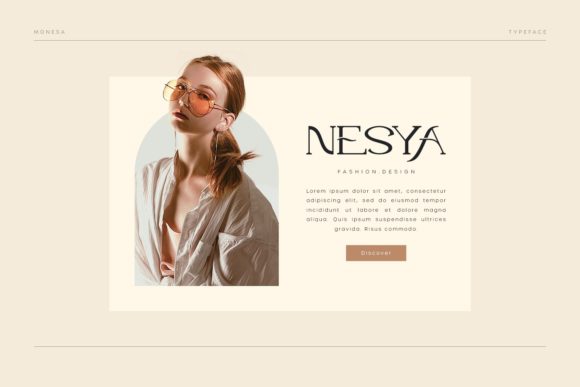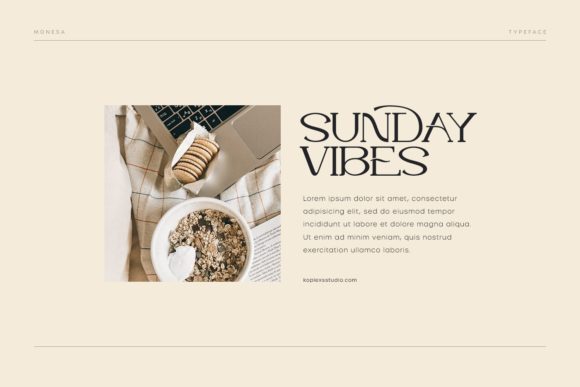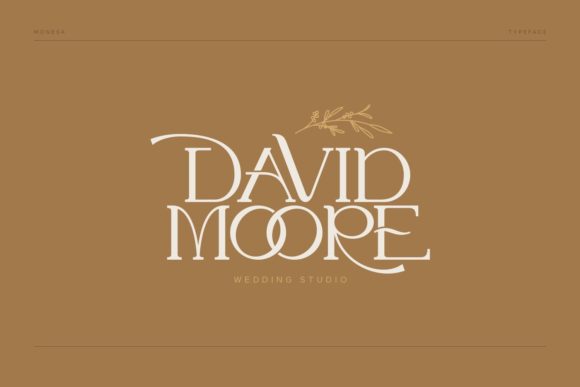
Introduction to Monesa Font
Monesa is an elegant serif font.
Fall in love with its incredibly versatile style and use it to create gorgeous wedding invitations, beautiful stationary art, eye-catching social media posts, and much more This font is PUA encoded which means you can access all of the amazing glyphs and ligatures with ease.
Key Features of Monesa Font
Why Choose Monesa Font?
Monesa Font offers exceptional quality and versatility, making it a valuable addition to your design toolkit. Whether you’re creating for personal projects or commercial use, Monesa Font delivers professional results.